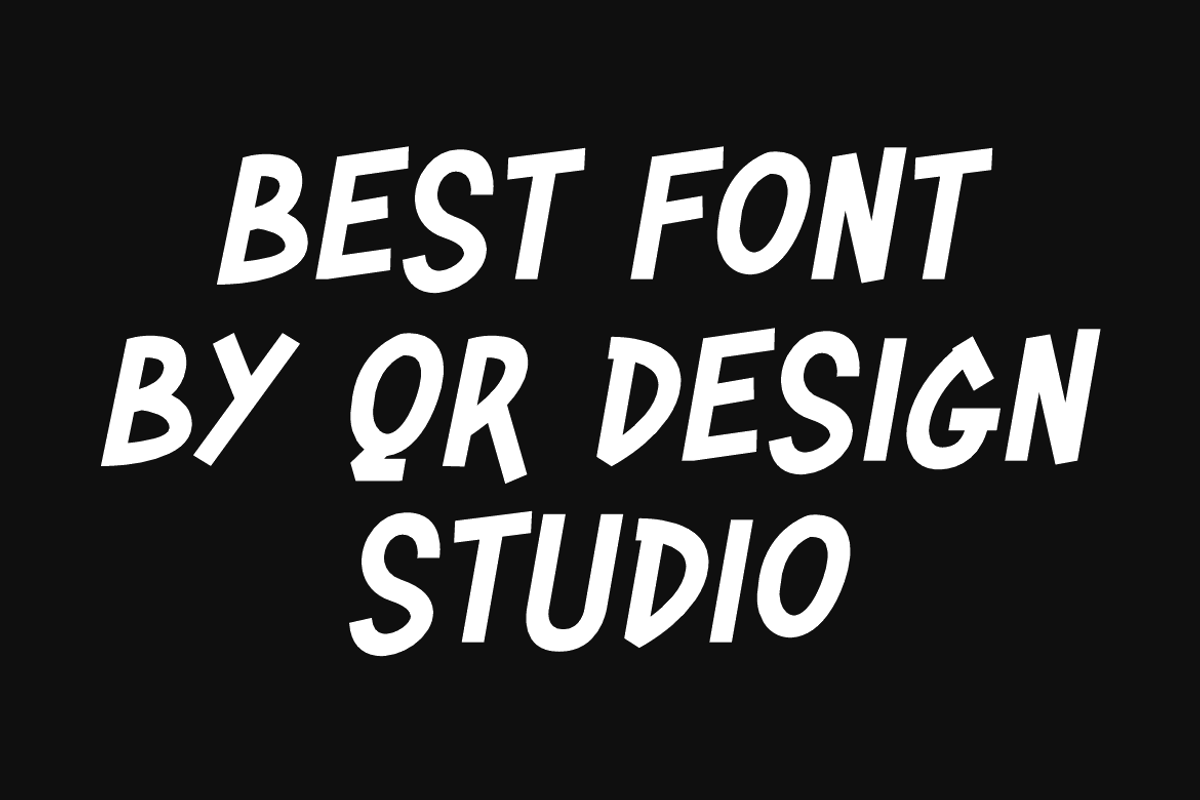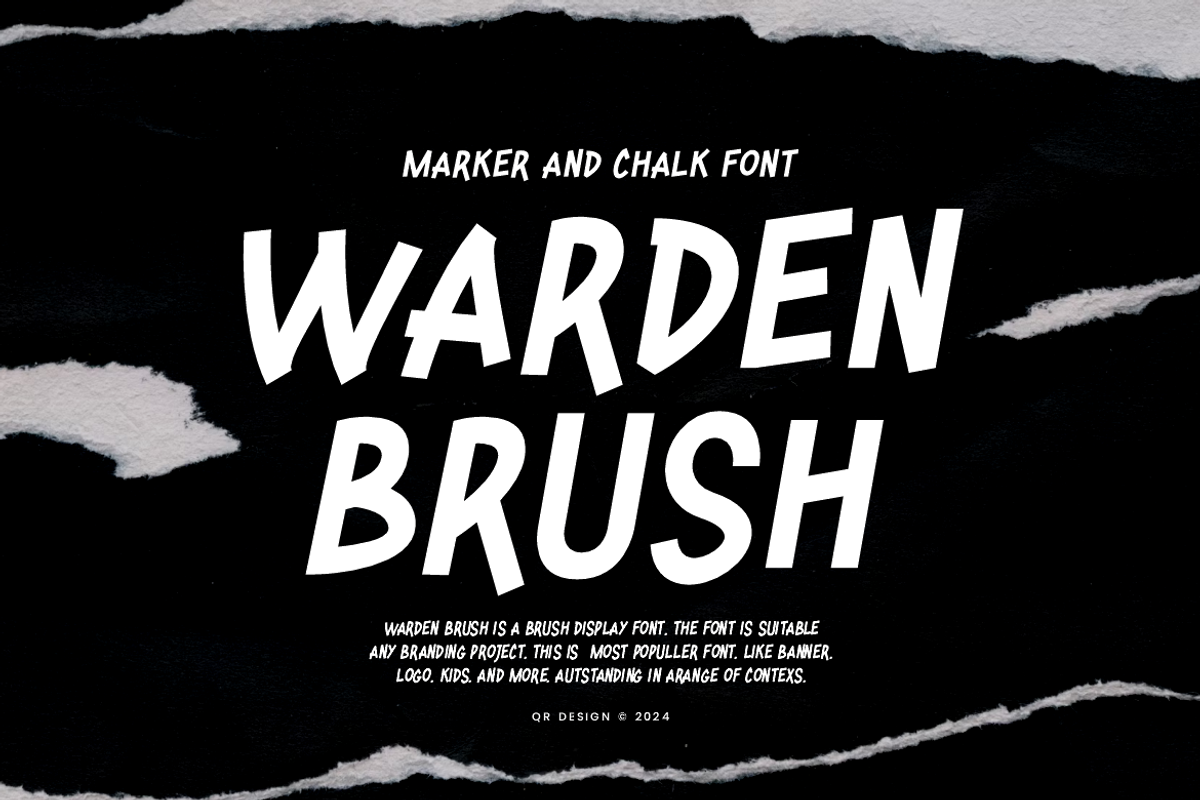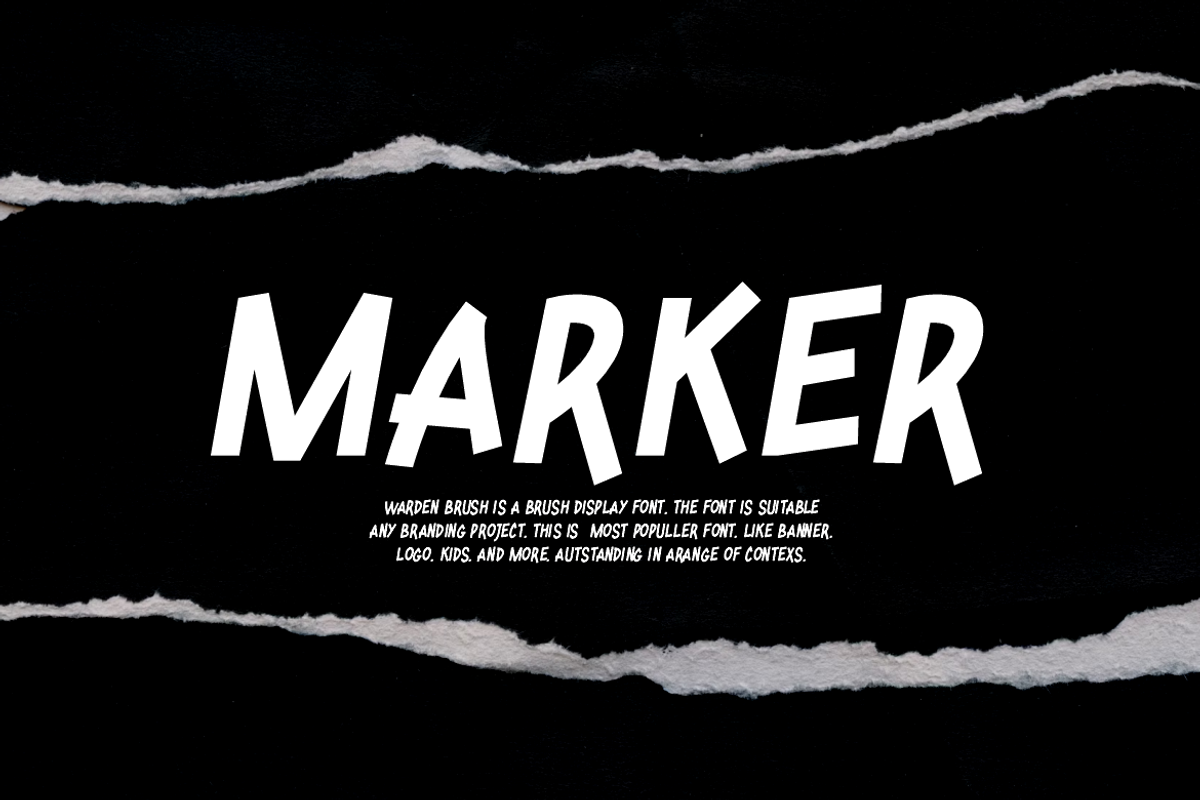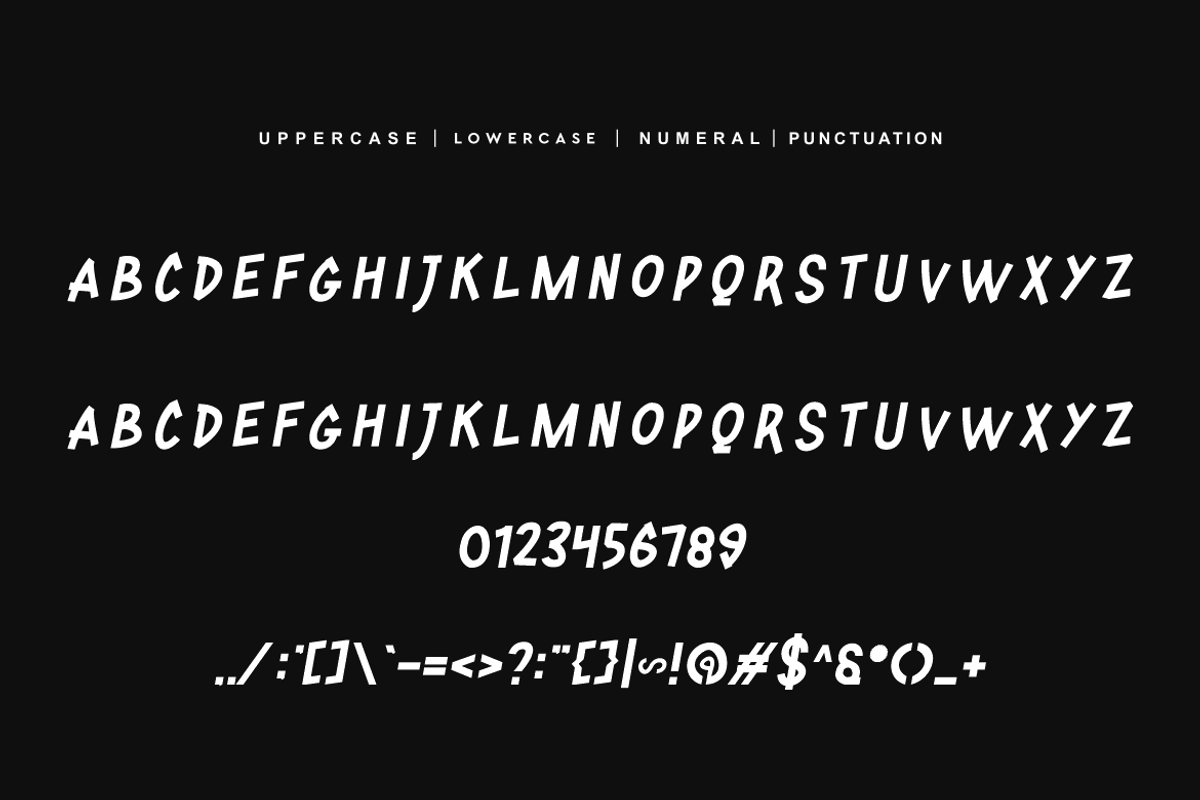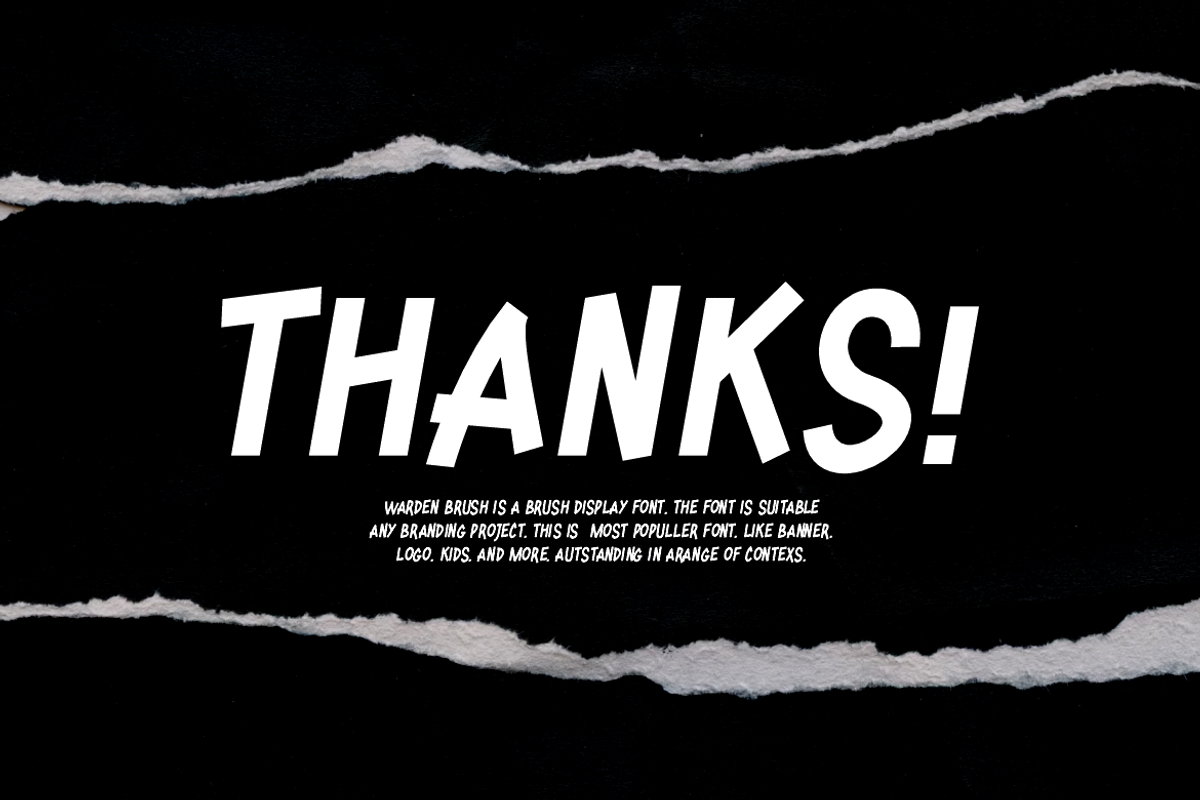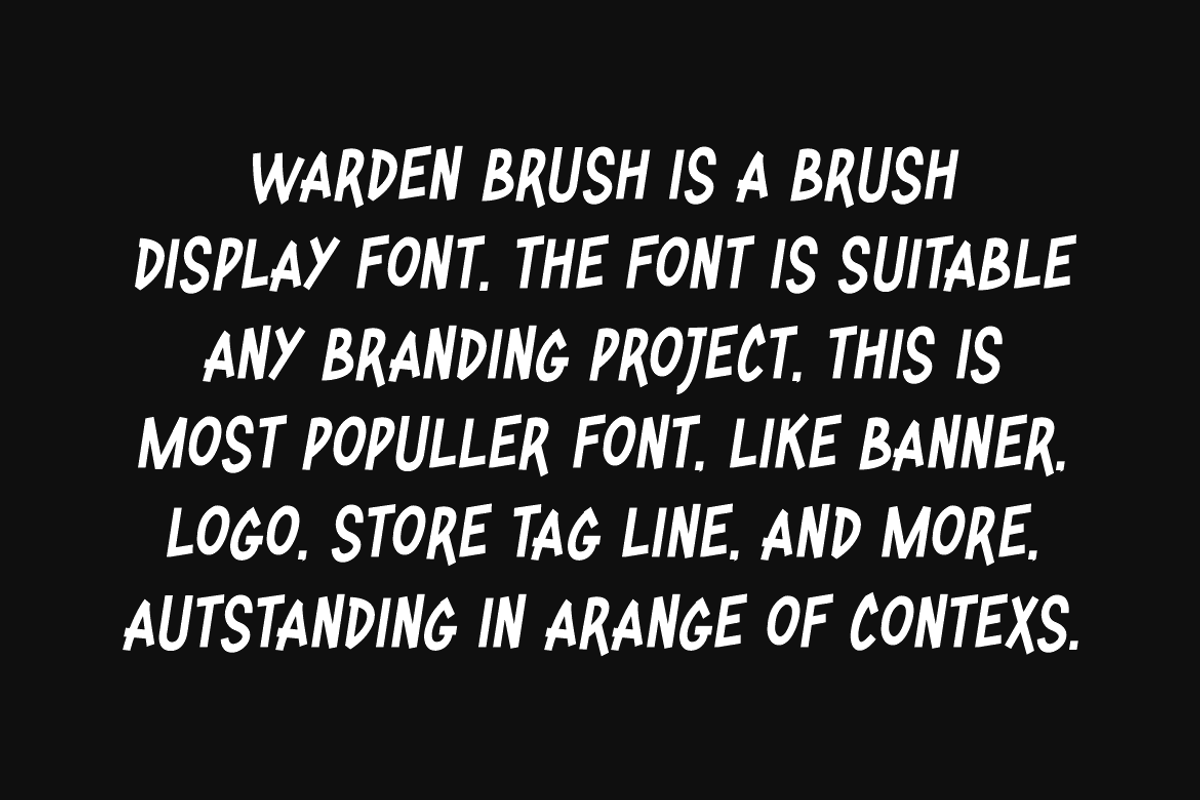
Warden Brush - Marker Font
Warden Brush Font is a marker and authentic display font. The font is suitable for any branding project like poster, logo, sport, and many more. Outstanding in a wide range of contexts.